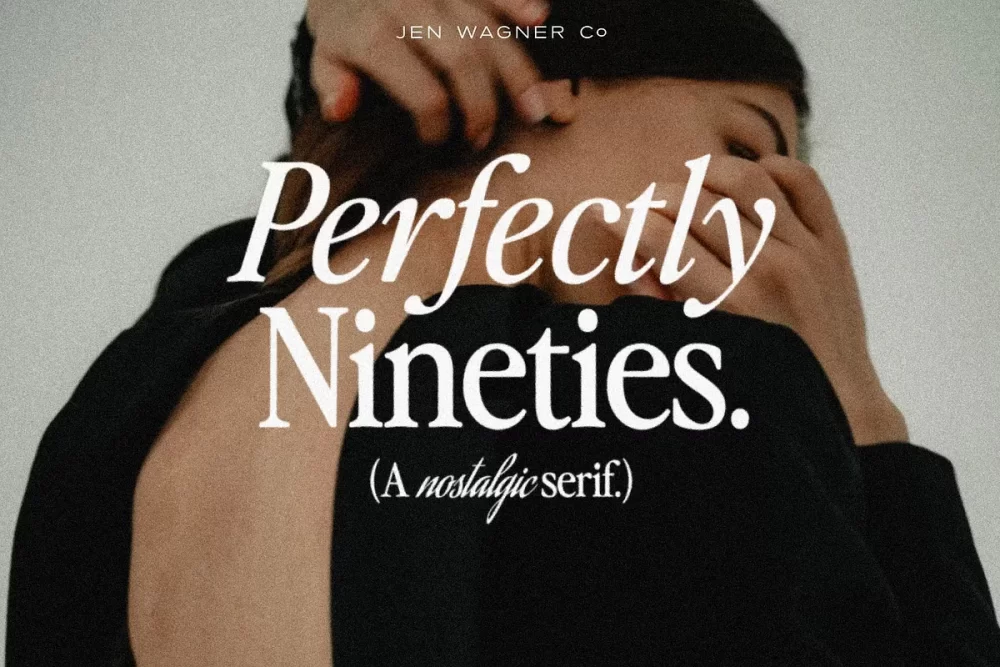
Perfectly Nineties is a brand new serif with all the nostalgic vibes! I’ve started seeing classic, tightly spaced serifs of the 80s & 90s making a comeback, and wanted to create the perfect one for you too! It is a beautifully nostalgic upper and lowercase typeface that looks incredible in both large and small settings as a display and body text.